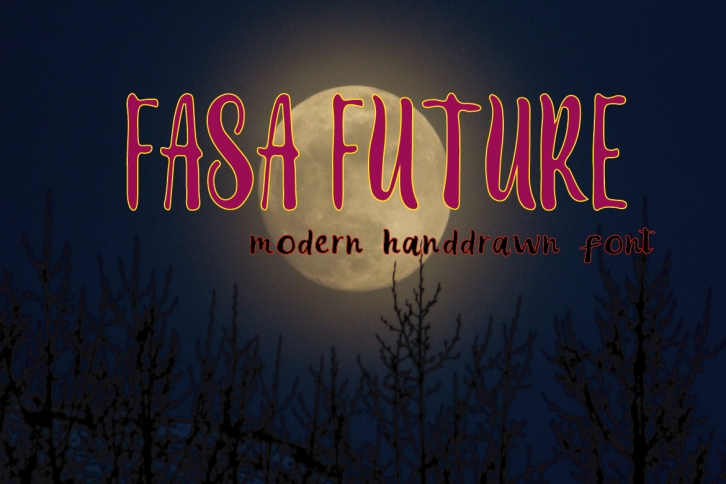
Fasa Future: Modern & Handwritten font to make every word you make more eye-catching. Great for social media post designs, branding, merchandise, posters, comics, display, etc.
Fasa Future is handmade so that the strokes of the letters are natural and beautiful to look at.